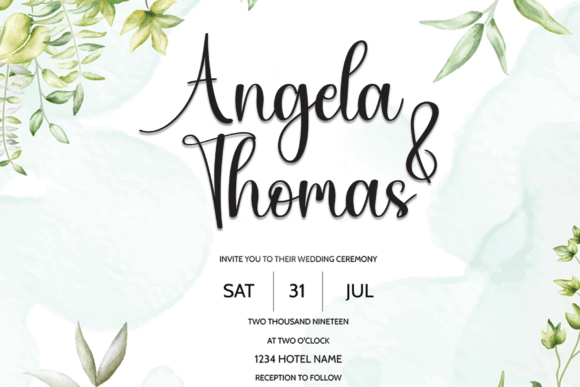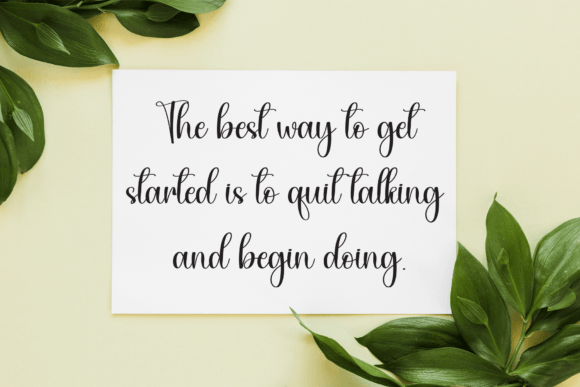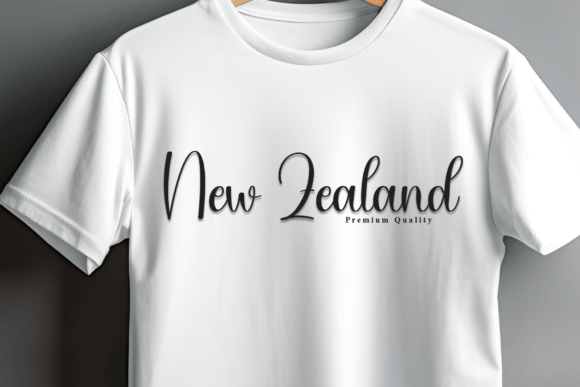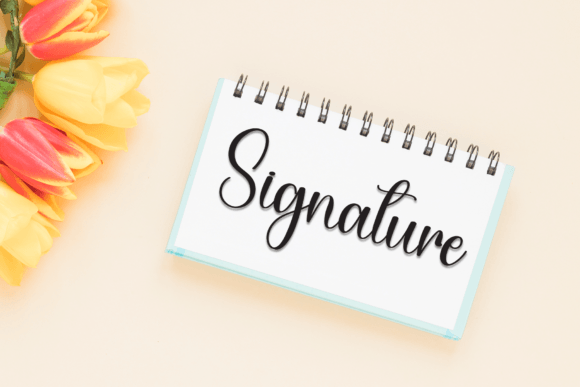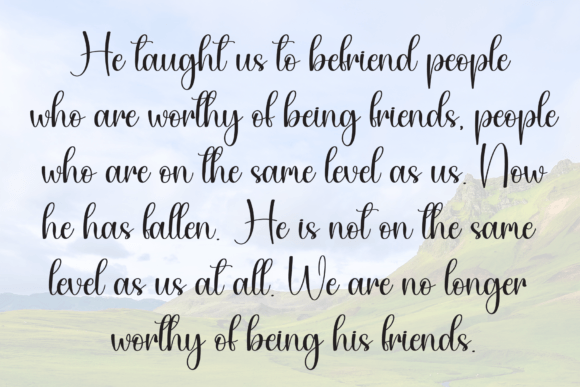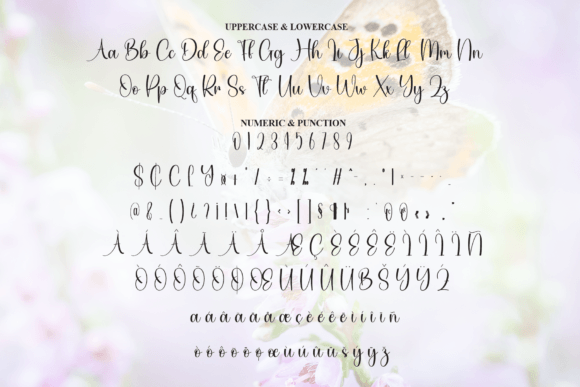
Introducing Butterfly Font: Elevate Your Designs with Elegance and Charm
Are you looking for a font that can add a touch of sophistication and whimsy to your designs? Look no further than Butterfly Font, a beautiful handwritten script font that is sure to captivate your audience. With its flowing, graceful curves and delicate strokes, Butterfly Font is perfect for designers and crafters who want to create stunning invitations, logos, and branding materials that exude elegance and charm.
The Beauty of Butterfly Font
Butterfly Font is a stylish handwritten script font that is designed to bring a personal and sophisticated touch to any design. Its flowing curves and delicate strokes create a sense of movement and fluidity, making it perfect for designs that require a touch of elegance and whimsy. Whether you’re creating invitations, logos, or branding materials, Butterfly Font is sure to add a touch of charm and sophistication that will set your designs apart.
Butterfly Font is a versatile font that is perfect for designers and crafters who want to create stunning designs that showcase their creativity and skill. Whether you’re creating digital designs or handmade crafts, Butterfly Font is a great choice for any project that requires a touch of elegance and sophistication. With its delicate strokes and flowing curves, Butterfly Font is sure to bring warmth and creativity to your projects.
Use Butterfly Font for:
- Invitations: Create stunning invitations for weddings, parties, and other special occasions with Butterfly Font.
- Logos: Use Butterfly Font to create unique and memorable logos for your business or brand.
- Branding: Add a touch of elegance and sophistication to your branding materials, such as business cards, brochures, and packaging.
- Digital Designs: Use Butterfly Font to create stunning digital designs, such as social media graphics, blog headers, and website titles.
- Handmade Crafts: Add a personal touch to your handmade crafts, such as scrapbooking, card making, and journaling.
Why Choose Butterfly Font?
There are many reasons why Butterfly Font is a great choice for designers and crafters. Here are just a few:
- Elegant and Charming: Butterfly Font is a beautiful handwritten script font that exudes elegance and charm.
- Versatile: Butterfly Font is a versatile font that can be used for a wide range of design projects.
- Easy to Read: Butterfly Font is easy to read, even at small sizes, making it perfect for designs that require a lot of text.
- Unique: Butterfly Font is a unique font that will set your designs apart from the crowd.
Tips for Using Butterfly Font
Here are a few tips for using Butterfly Font in your designs:
- Use it as a headline font: Butterfly Font is perfect for headlines and titles, where its elegant and charming curves can really shine.
- Pair it with a sans-serif font: Pair Butterfly Font with a sans-serif font, such as Arial or Helvetica, to create a beautiful contrast between the elegant script font and the clean, modern sans-serif font.
- Experiment with colors: Butterfly Font looks great in a variety of colors, from bold and bright to soft and pastel.
- Use it sparingly: While Butterfly Font is a beautiful font, it can be overwhelming if used too much. Use it sparingly to add a touch of elegance and sophistication to your designs.
Butterfly Font is a beautiful handwritten script font that is perfect for designers and crafters who want to add a touch of elegance and charm to their designs. With its flowing, graceful curves and delicate strokes, Butterfly Font is sure to bring warmth and creativity to your projects. Whether you’re creating invitations, logos, or branding materials, Butterfly Font is a great choice for any design project that requires a touch of sophistication and whimsy.